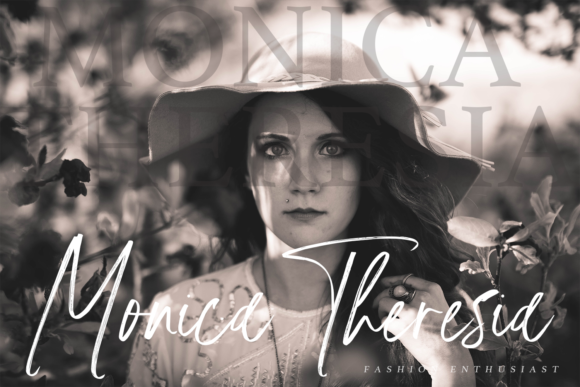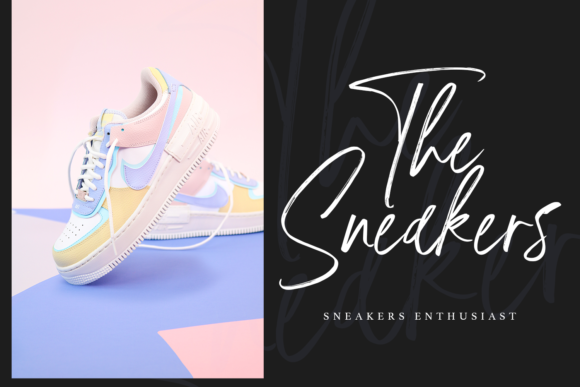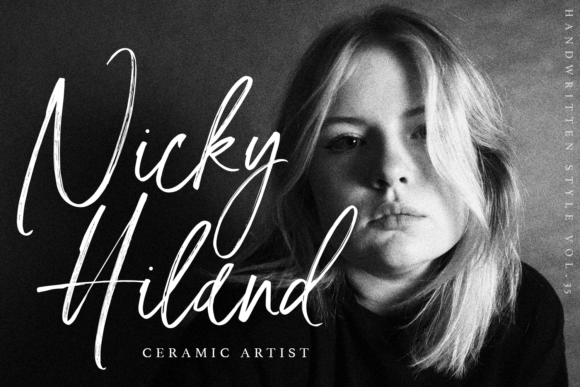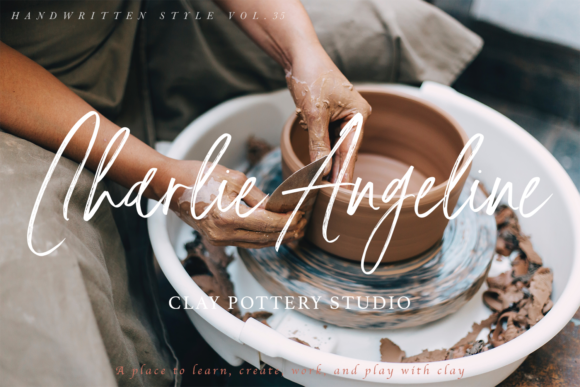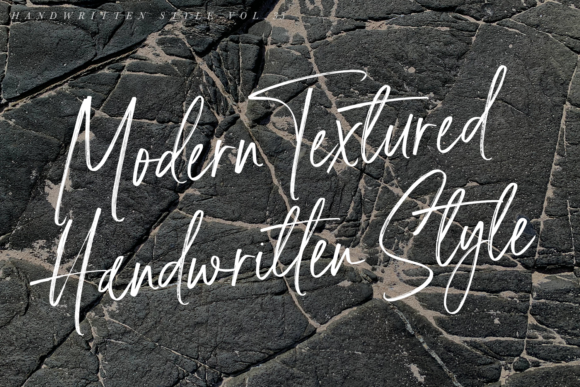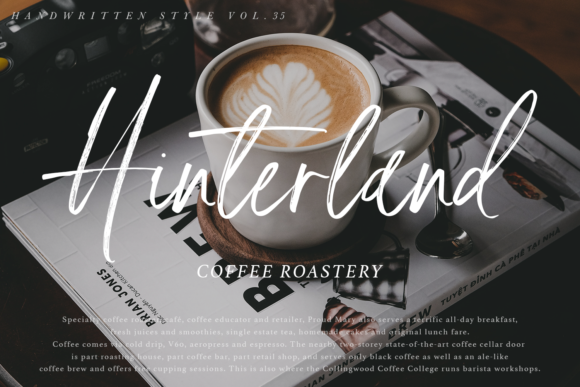
Introduction to Plainfield Font
Plainfield is a relaxed and timeless, brushed handwritten font.
It looks lovely on wedding invitations, thank you cards, quotes, greeting cards, logos, business cards and every other design which needs a personalized touch .